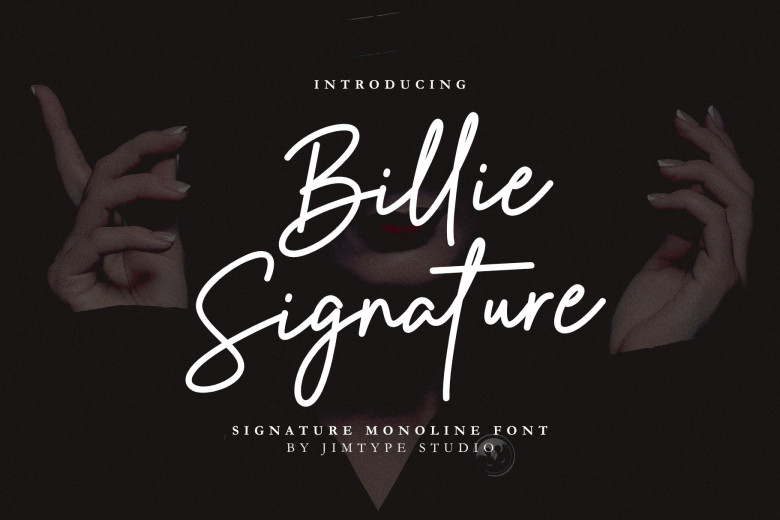
Billie Signature Font
Billie Signature is a smooth signature font perfect for branding projects, Social media posts, logotypes, product packaging, advertisements, product designs, photography, label, watermark, invitation or any project that needs signature taste. Because of careful design of the letters, each letter has a strong character and will be a good choice for related tasks.
Billie Signature Monoline Font